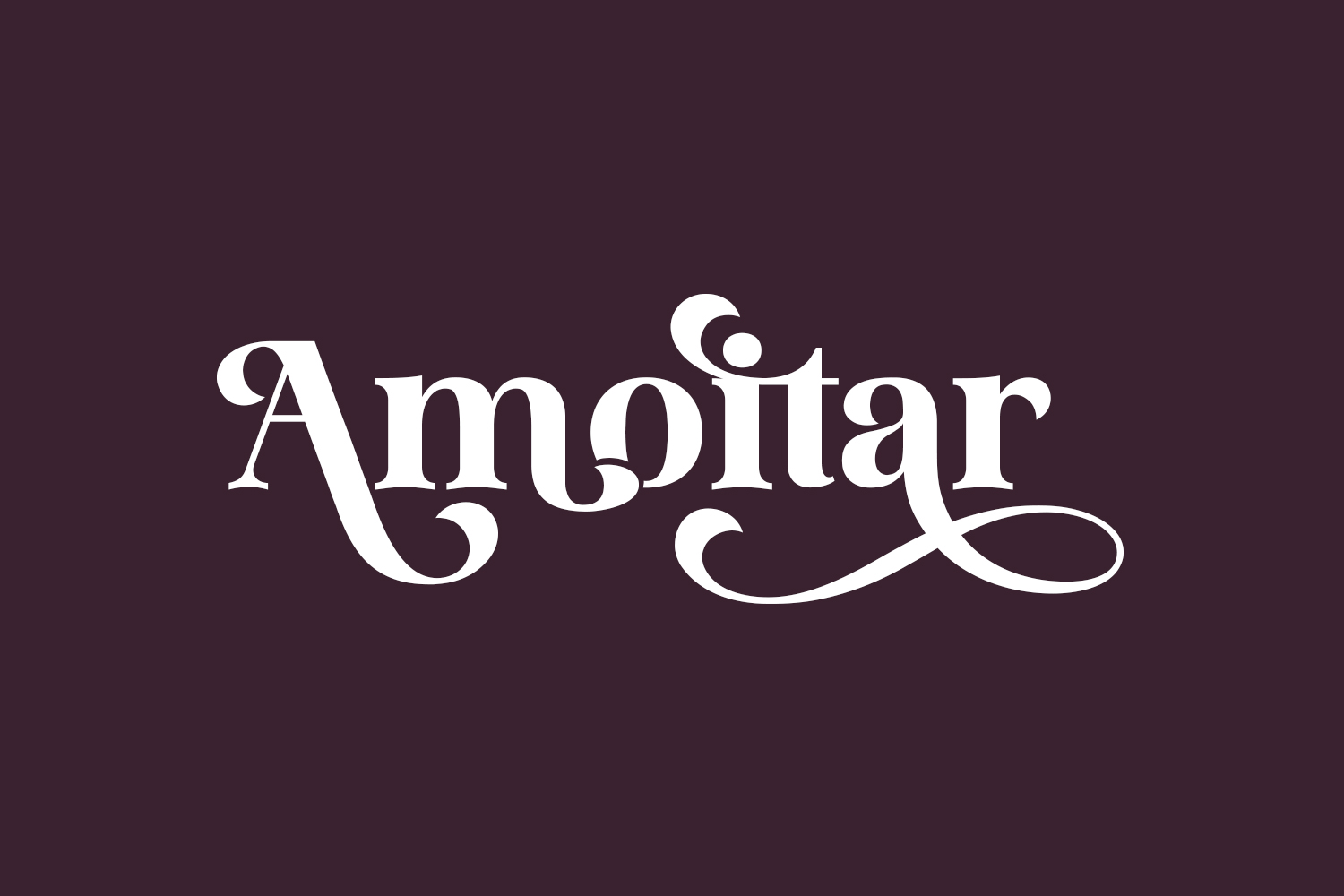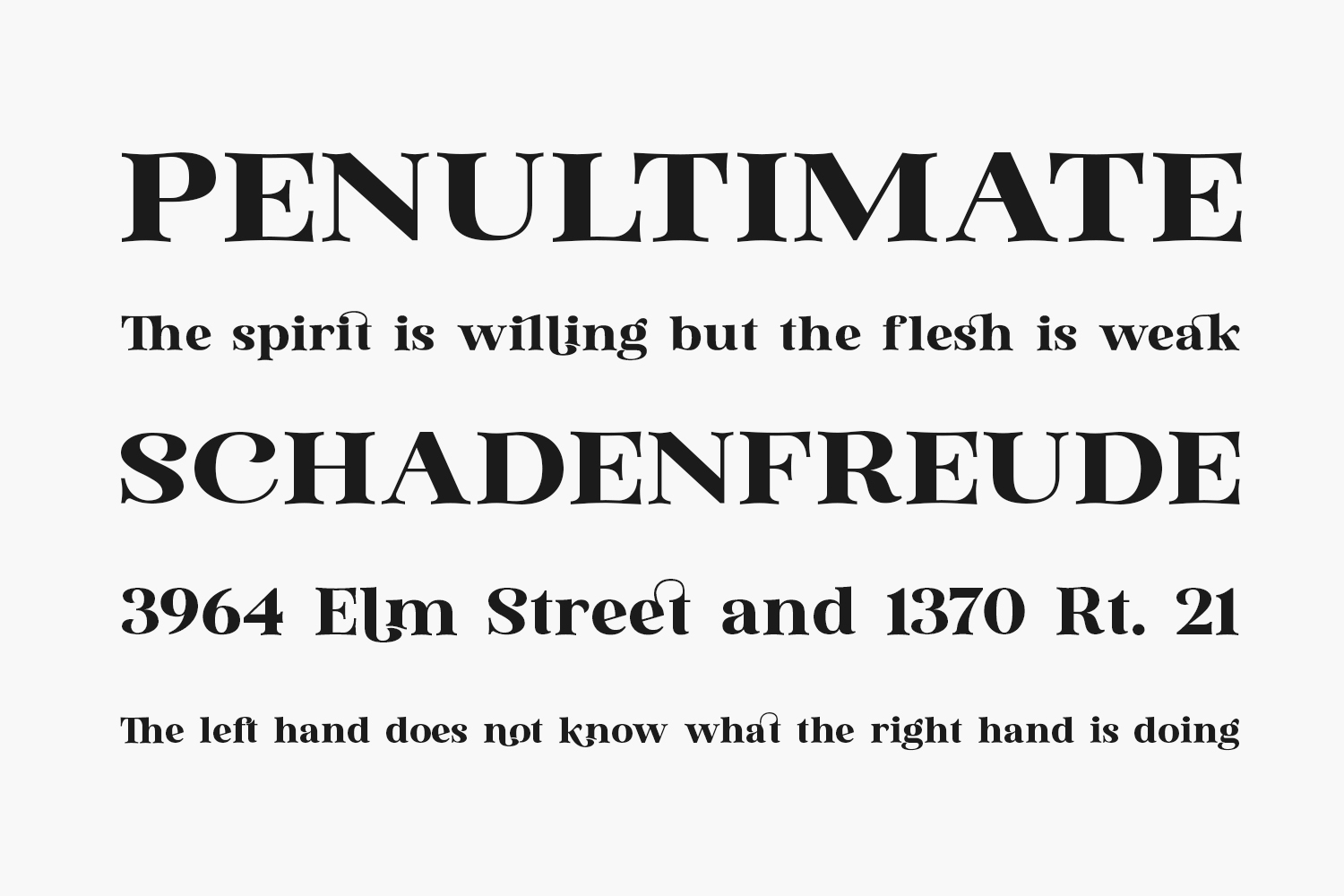
Introducing Amoitar Free Font, a sophisticated serif font designed to infuse your projects with a sense of luxury and style. This exquisite typeface seamlessly blends modern aesthetics with a refined flourish, featuring a harmonious combination of regular and thin stroke widths. Whether you’re creating striking logotypes, establishing a captivating brand identity, designing elegant wedding monograms and invitations, crafting attention-grabbing blog headlines, or pursuing various other creative ventures, Amoitar is the perfect choice. Elevate your designs with the timeless elegance of Amoitar for a truly remarkable result. Amoitar Free Font is free for personal use only. Please purchase the full version for commercial use.